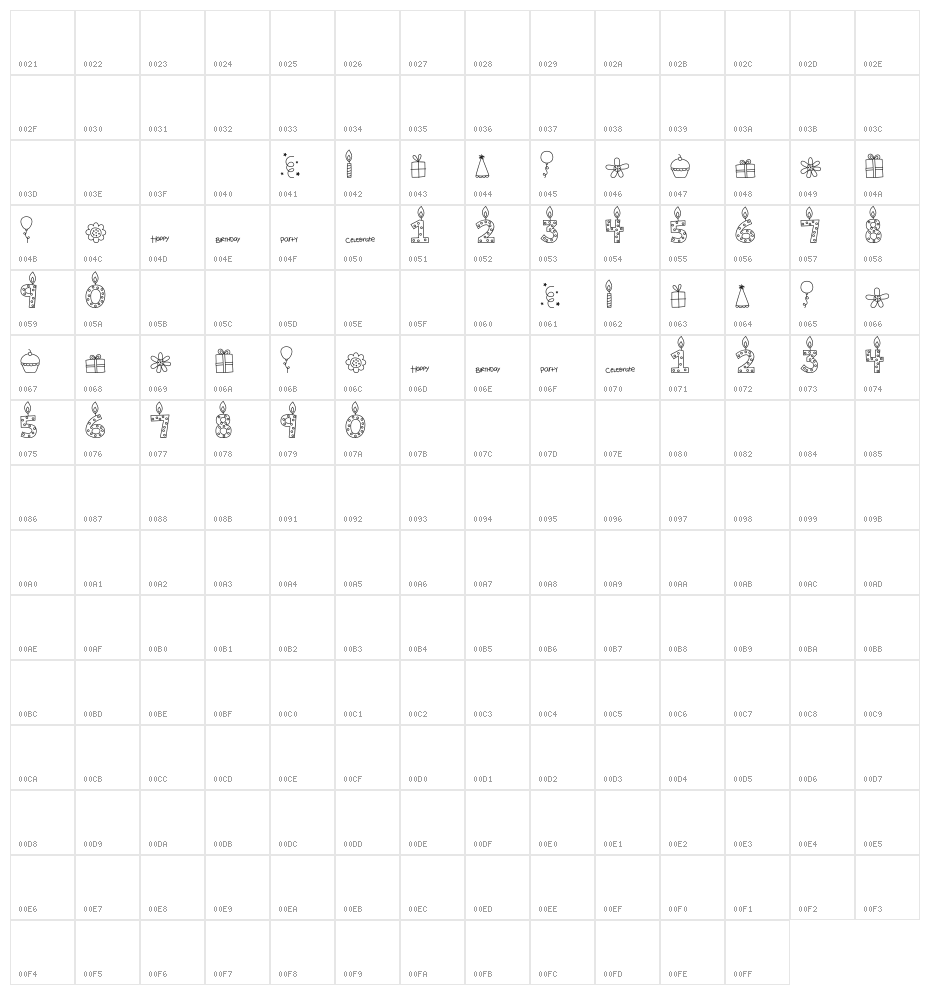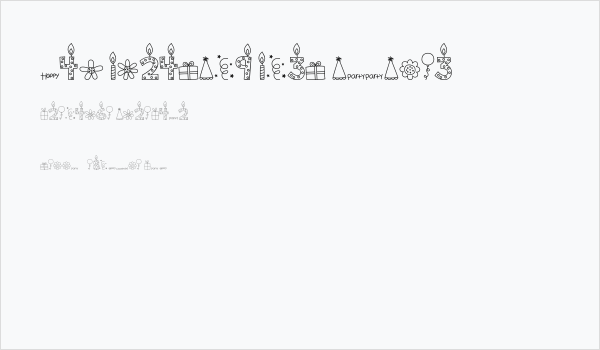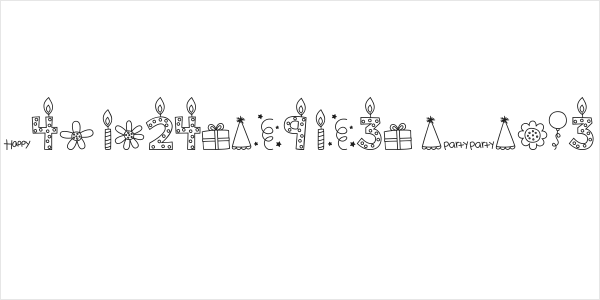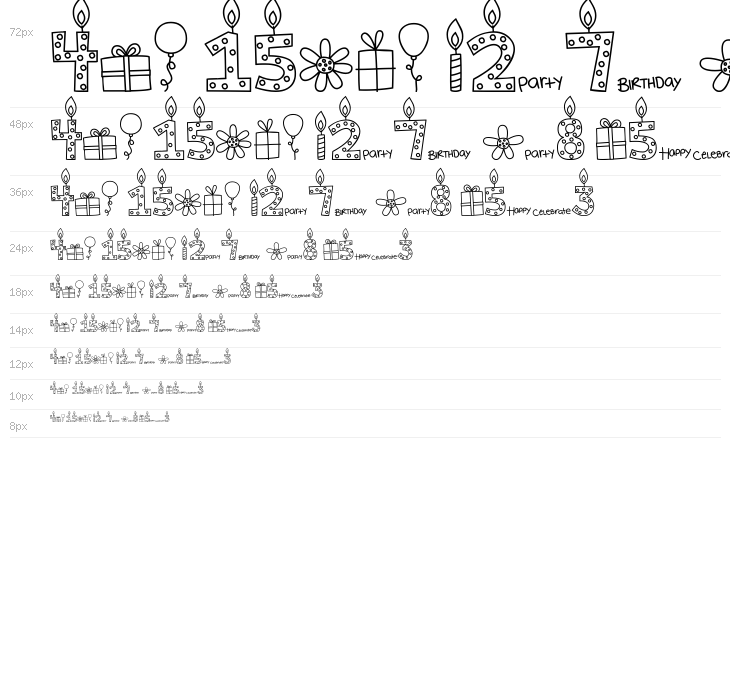
MTF Birthday Bash Doodles Font
MTF Birthday Bash Doodles Description
This playful and whimsical font is designed with a birthday theme in mind, featuring doodle-style illustrations of party elements such as candles, balloons, cupcakes, and gifts. The characters are adorned with decorative elements that evoke a sense of celebration and joy. Each number is topped with a candle, adding to the festive feel. The font is perfect for creating a lively and fun atmosphere, making it ideal for invitations, greeting cards, and party decorations. Its hand-drawn style gives it a personal and unique touch, appealing to both children and adults alike.
| Proposed Projects | Ideal for birthday invitations, greeting cards, party decorations, and festive banners. |